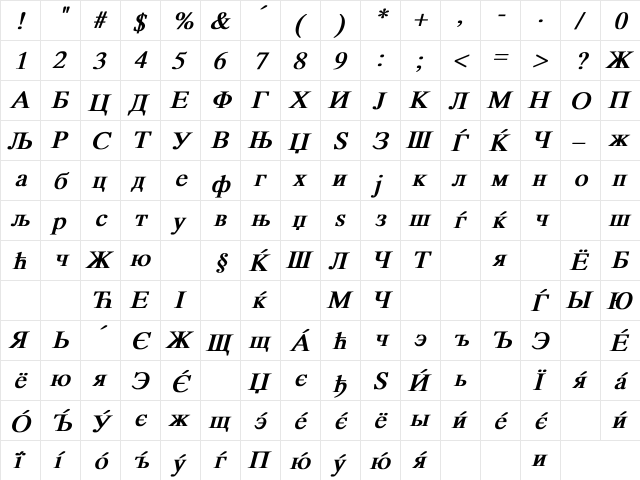
MKDTIMES Bold Italic Font Preview
MKDTIMES Bold Italic
MKDTIMES Bold Italic Font Details
Design Context for MKDTIMES Typeface
MKDTIMES offers clean, dependable letterforms without strong stylistic allegiance, making it a practical choice for designers who need flexibility. The slanted form adds forward momentum and visual energy. Its bold stroke weight gives it real presence on the page.